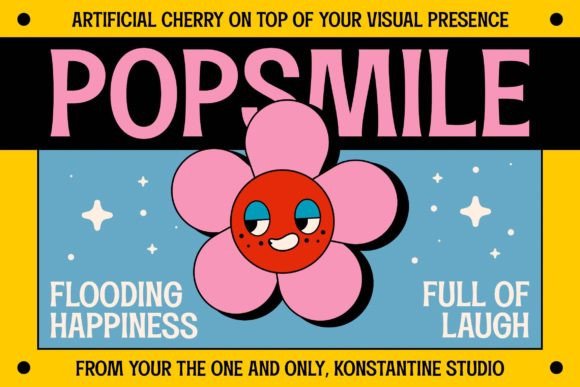
In a world of monotonous texts, let Popsmile Font ignite your designs with a blast from the past! This display font family, crafted meticulously by konstantinestudio, is a visual masterpiece inspired by the vibrant pop culture of the 70s and 80s. Imagine the bold packaging, eye-catching posters, playful signs, and retro advertisements of that era – Popsmile captures their essence perfectly.
Transport your designs to a time of classic and playful vibes. Unleash your creativity with Popsmile, the ultimate companion for vintage and retro-inspired graphic designs. Dive into a world of nostalgia, where every letter dances with a unique personality, evoking a sense of familiarity and wonder.
With Popsmile, your website header will become a captivating spectacle, grabbing the attention of visitors and drawing them into your captivating world. Its distinct charm adds a touch of playfulness and whimsy, inviting users to explore and engage with your content.
But Popsmile's versatility doesn't stop at website headers. Its playful nature lends itself seamlessly to posters, flyers, social media graphics, and any design project yearning for a touch of retro flair. Unleash your imagination and let Popsmile transform your creative visions into captivating realities.